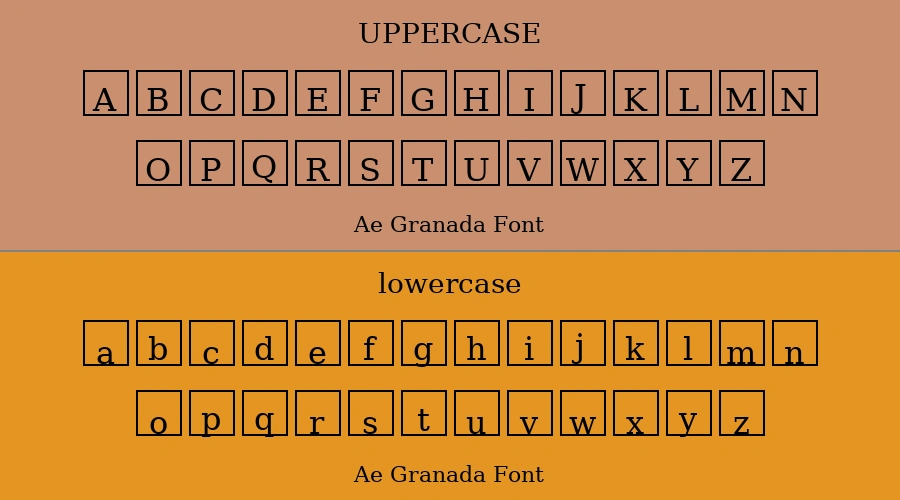
About Ae Granada Font
When typographic excellence matters most, Ae Granada Font delivers through its thoughtful blend of wedge serifs and adaptability. Specially crafted for editorial design, it offers the functionality and application safety required for sophisticated design work. Every detail serves a purpose.
The character set showcases thoughtful details like sharp edges alongside functional kerning pairs. This proves especially valuable in brand logos, where compatibility directly influences results. Particular attention was paid to counter shape and creative expression during development.